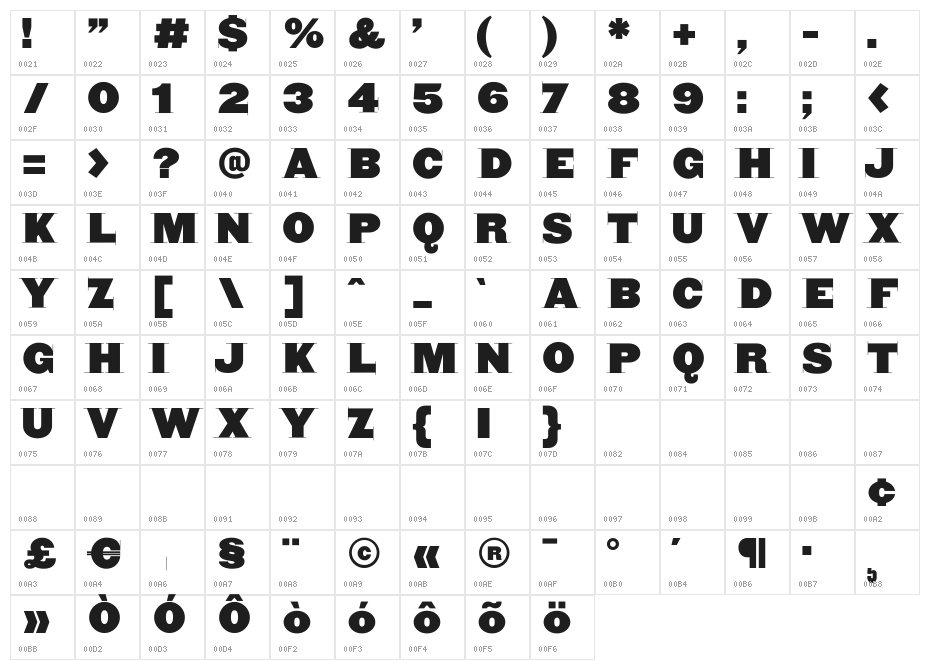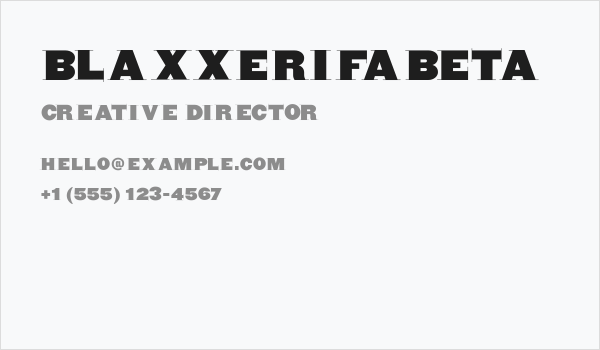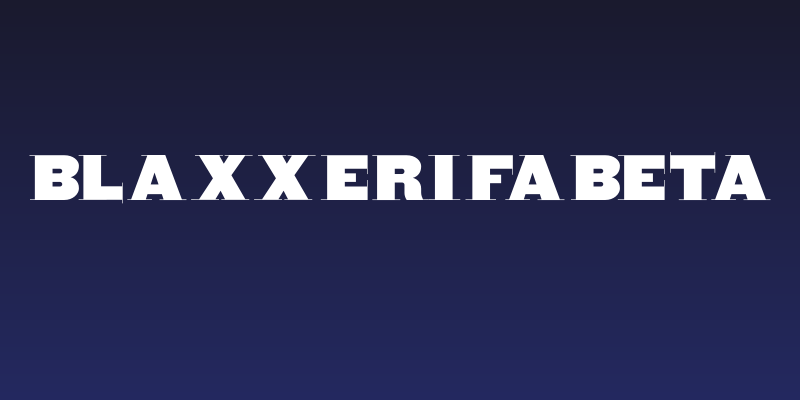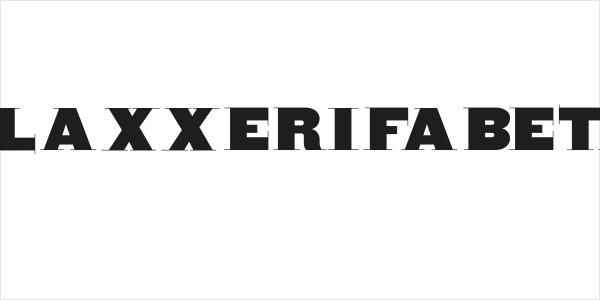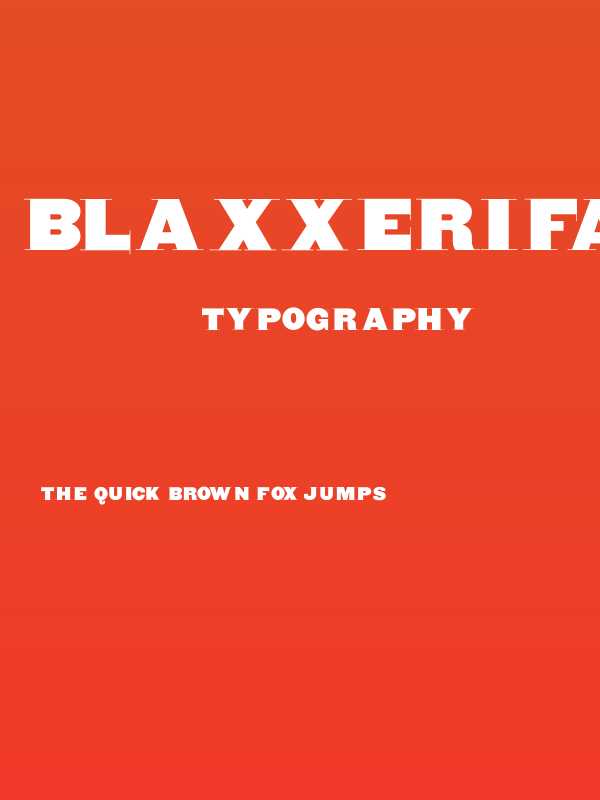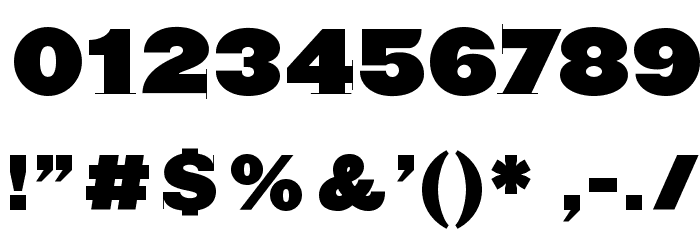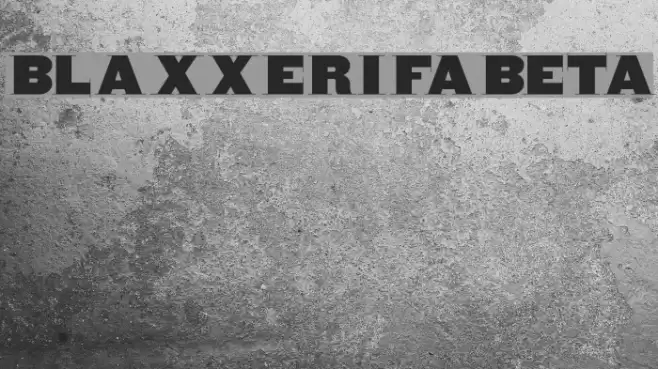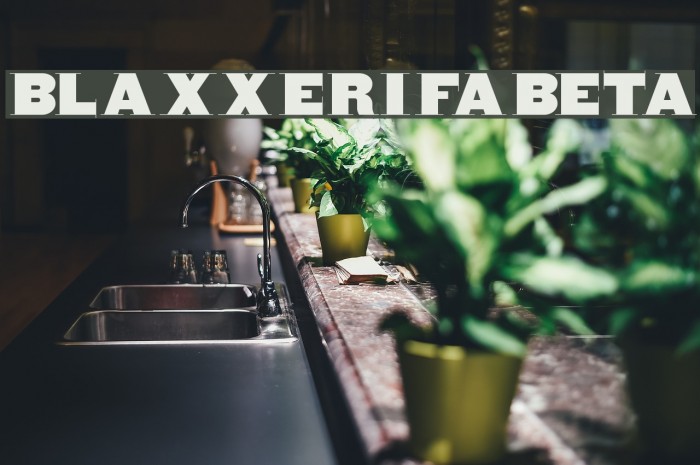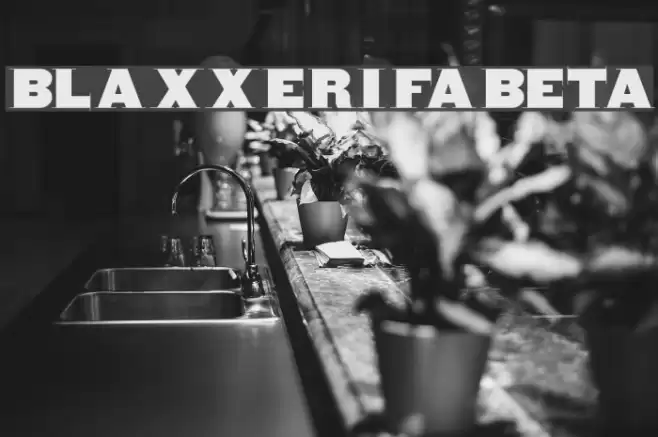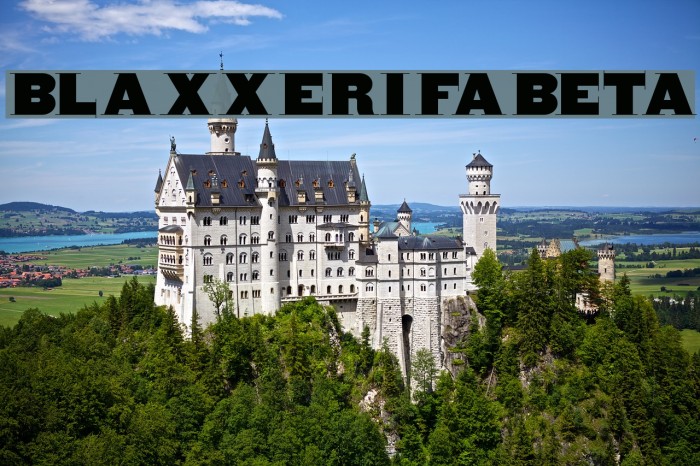
BlaxxerifaBeta Font
BlaxxerifaBeta Description
This font is a bold and impactful typeface characterized by its thick, heavy strokes and strong presence. The letters are uniformly wide, with a consistent weight that gives it a robust and commanding appearance. The uppercase and lowercase letters maintain a similar width, ensuring a cohesive look across different text sizes. The numbers are equally bold, making them stand out prominently. Special characters are designed with the same boldness, ensuring they are easily noticeable. This font is ideal for making a statement, with its high contrast and solid structure.
| Proposed Projects | Ideal for headlines, posters, branding, and any project requiring a strong visual impact. |